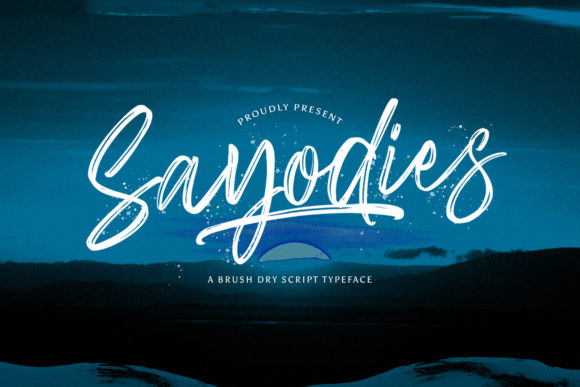
Introducing Sayodies Font: An Exquisite Fusion of Art and Elegance
In a world where creativity knows no bounds, allow us to introduce you to Sayodies Font, an extraordinary script font that will transform your designs into masterpieces. Sayodies is a unique and captivating font family, meticulously crafted with the utmost attention to detail, created using a brush pen to bestow it with a dry brush effect that exudes both authenticity and artistry. Inspired by the beauty of flowing strokes, Sayodies Font will unleash your imagination and leave you breathless with its visual allure.
With Sayodies Font, you hold the key to unlocking a world of limitless creative possibilities. Its distinctive style and captivating flow will add an extra layer of elegance and sophistication to your designs, making them stand out from the mundane and commanding attention wherever they may appear. Whether you're a seasoned designer or just starting your creative journey, Sayodies Font is the perfect companion for your design arsenal.
Immerse yourself in the world of Sayodies and let your designs flourish with unmatched grace and charm. Embrace the artistry of its dry brush effect and watch as your projects come alive with dynamic energy. Sayodies Font will elevate your designs to new heights, capturing the essence of handwritten beauty and adding a touch of organic charm that will resonate with your audience.
Sayodies Font: A Symphony of Creativity Awaits
With every stroke of the pen, Sayodies Font dances across your screen, leaving a trail of beauty in its wake. Its meticulous design allows for seamless blending with various design styles, making it a versatile font that caters to a diverse range of creative endeavors. Whether you're creating logos, branding materials, social media graphics, or even wedding invitations, Sayodies Font will effortlessly elevate your designs and leave a lasting impression.
Step into the realm of Sayodies Font and embark on a creative odyssey where your designs will take center stage. With its ability to infuse your projects with an air of sophistication and charm, Sayodies Font will captivate your audience and leave them craving more. Its dry brush effect adds a touch of texture and depth, creating an immersive experience that will transport your viewers into a world of elegance and creativity.
Awaken Your Creative Spirit with Sayodies Font
Sayodies Font is more than just a collection of letters; it's a gateway to a world of artistic expression. Its flowing strokes and organic charm will ignite your creative spirit and inspire you to push the boundaries of your imagination. Whether you're a seasoned designer or just beginning to explore the world of typography, Sayodies Font will empower you to create designs that are both visually stunning and deeply meaningful.
With Sayodies Font, you can unleash your creativity and let your designs shine like never before. Its unique dry brush effect will add a touch of authenticity and personality to your projects, making them stand out from the crowd and leaving a lasting impression on your audience. Let Sayodies Font be your creative muse, inspiring you to create designs that capture the imagination and leave an indelible mark on the world.